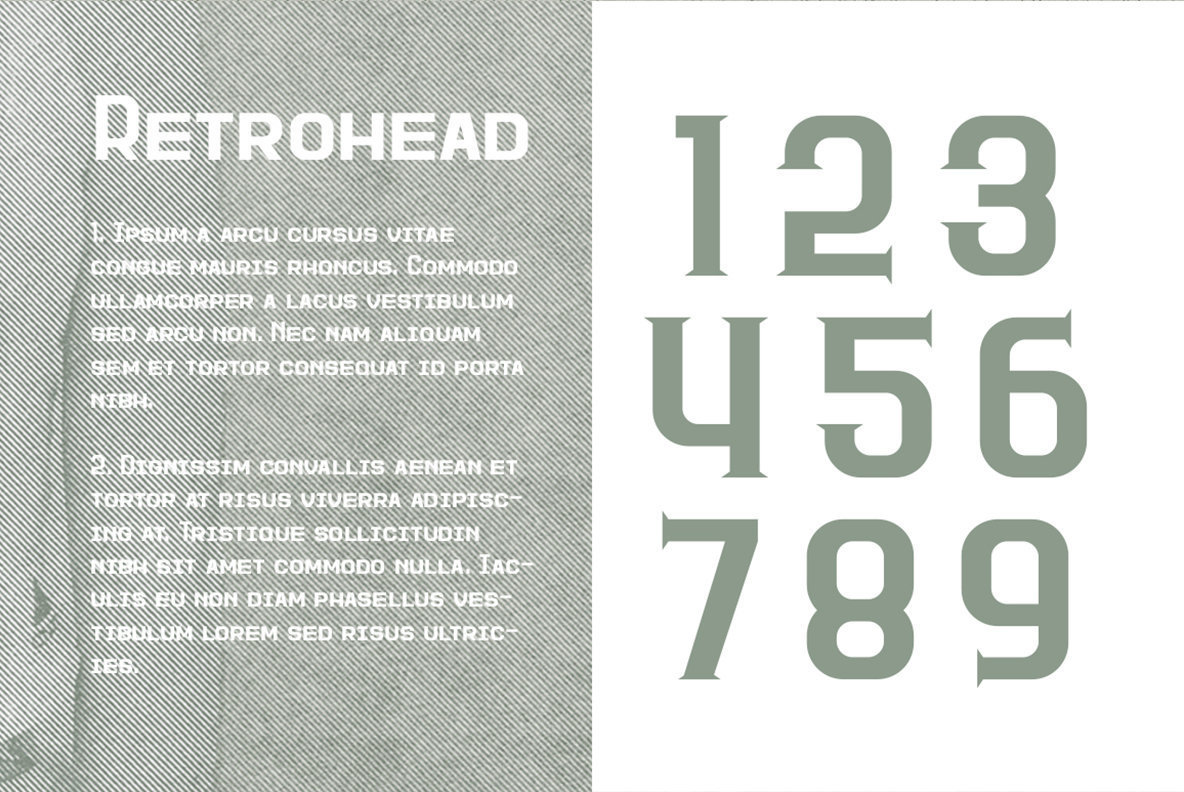
Retrohead Font
RETROHEAD, a robust typeface with a vintage touch. With it's unique and distinct retro characteristics it sets itself apart, while also maintaining a strong timeless appeal overall.
RETROHEAD includes two styles, Retrohead and Retrohead Serif, a number of 252 glyphs for each style and extensive language support (latin).
This versatile font is the perfect tool for industrial logo designs, headers but also for small and block text.
Uppercase and lower uppercase font